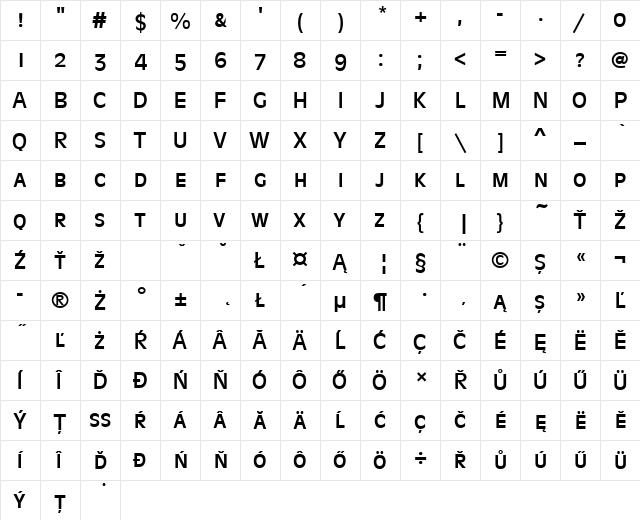
AntiqueOliSCTEEReg Regular
Design Context for AntiqueOliSCTEEReg Typeface
AntiqueOliSCTEEReg has the warm character of retro typography — evoking diners, record sleeves, and the golden age of print advertising.
Font Pairing: Combine AntiqueOliSCTEEReg with a simple slab or neutral sans — period-accurate companions reinforce the vintage feel without competing for attention.
Pro Tip: Use AntiqueOliSCTEEReg for headlines and pull quotes rather than body copy — its personality is best appreciated in short, focused bursts.